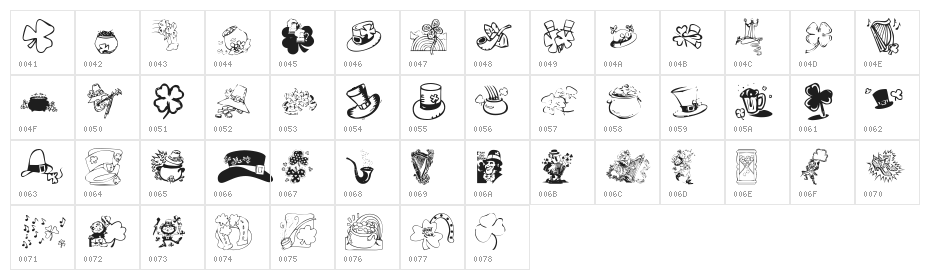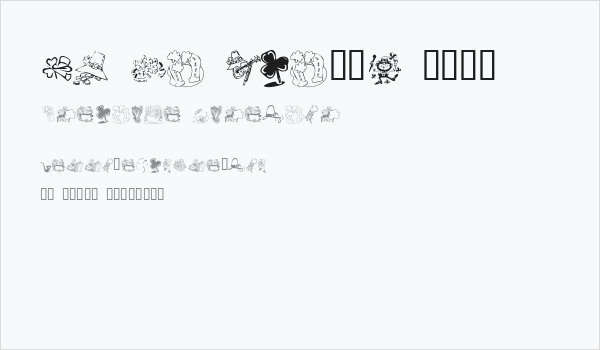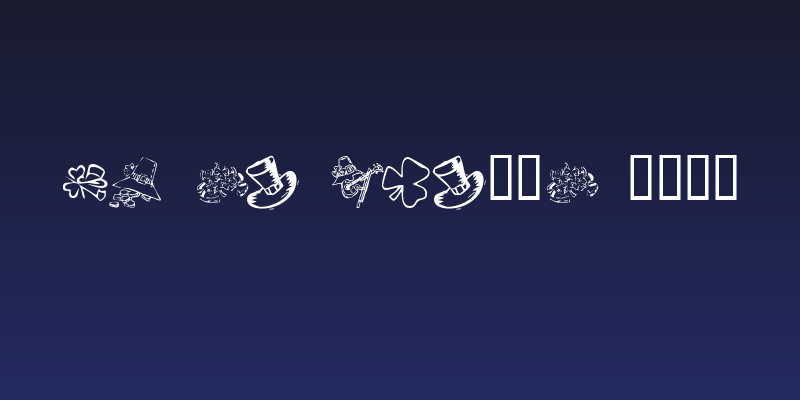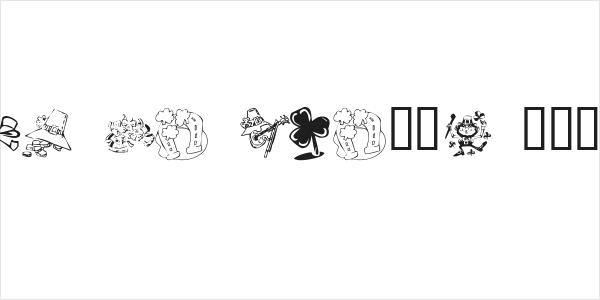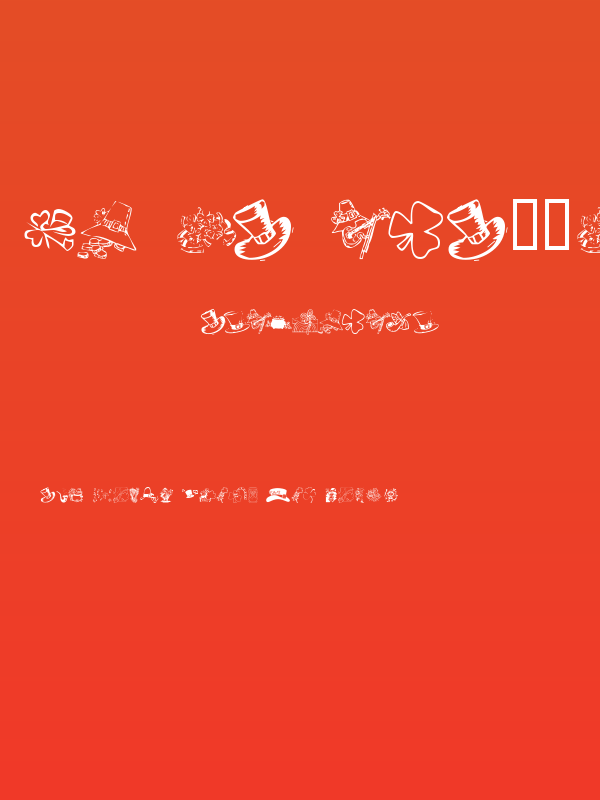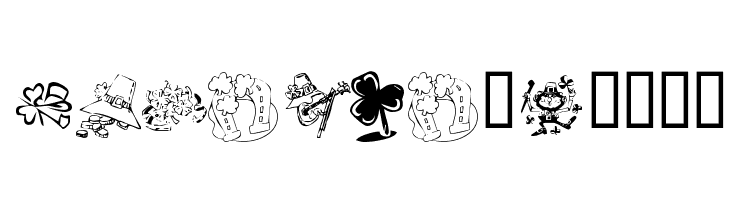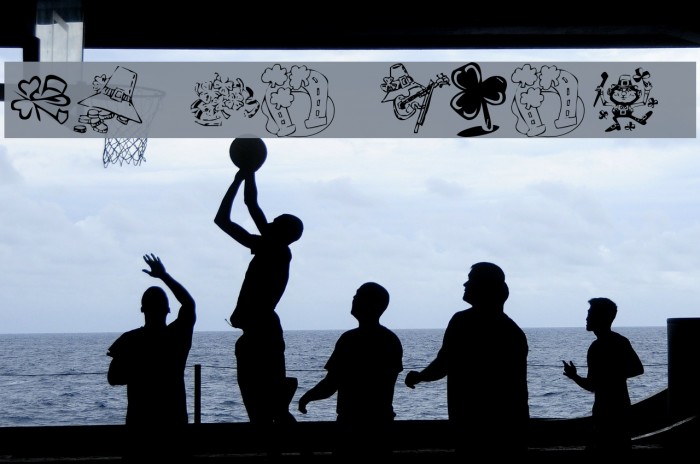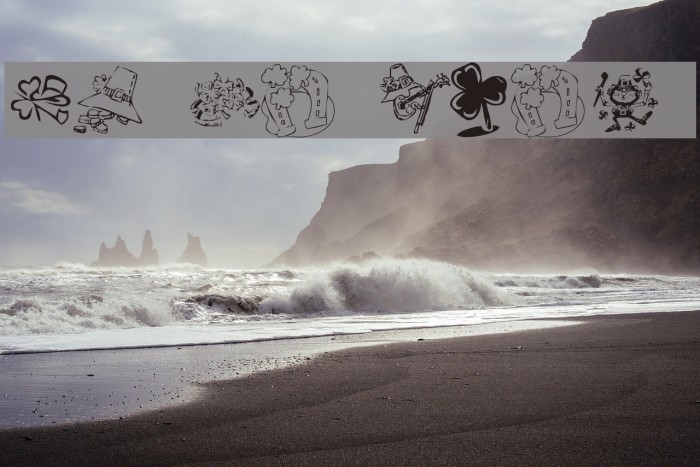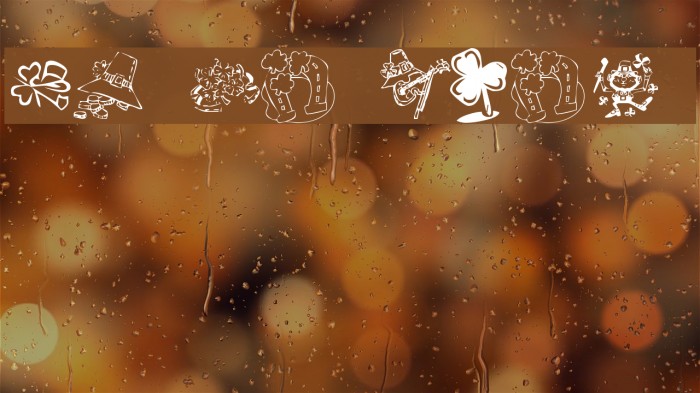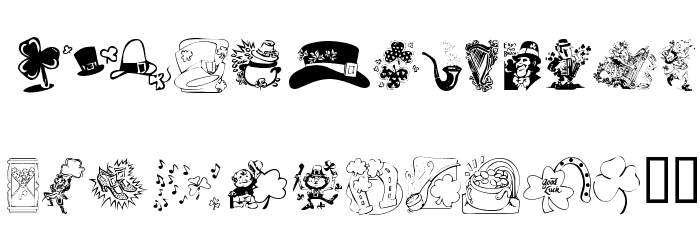
KR St Pat's 2003 Font
This is a decorative font featuring a variety of St. Patrick's Day-themed illustrations. Each character is represented by a unique graphic, including shamrocks, leprechaun hats, pots of gold, rainbows, and other festive symbols. The style is playful and whimsical, capturing the celebratory spirit of the holiday. The illustrations are detailed and vary in complexity, with some incorporating intricate line work and others being more simplistic. This font is ideal for adding a festive touch to any St. Patrick's Day project, offering a wide range of imagery to choose from.
| Use Case | Logos, Headlines, Decorative elements |
| Proposed Projects | Ideal for St. Patrick's Day event posters, greeting cards, party invitations, and themed decorations. |